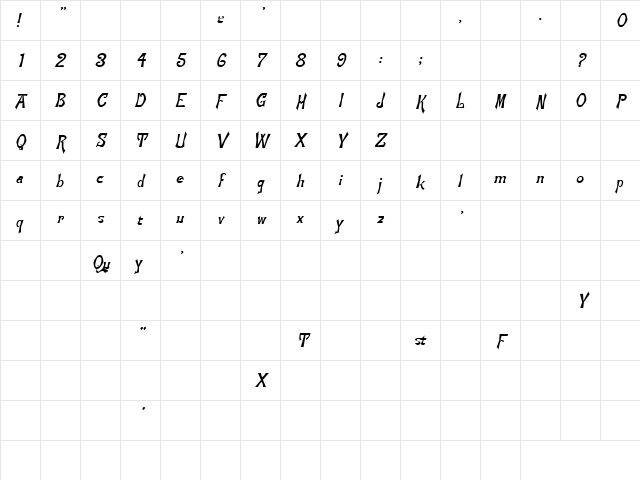
Tora 5 Regular
Complete Tora 5 Regular glyph index. Displaying only characters natively supported by Tora 5 Regular font.
Design Context for Tora 5
Tora 5 is a composed and adaptable typeface that performs quietly and consistently across a wide range of design contexts.